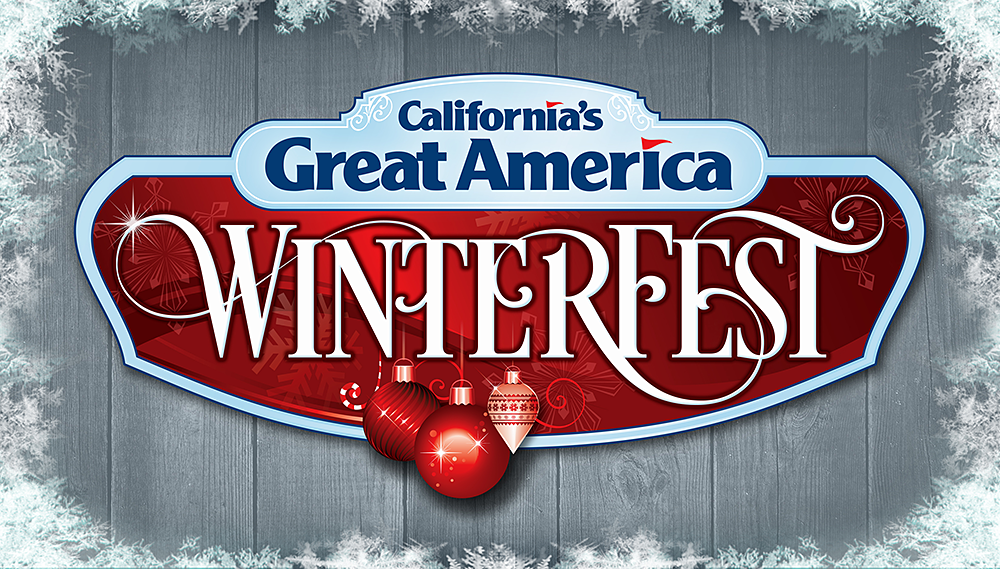
2016 Design Competition Runner Up Artist: Brian Kniceley Client: Cedar Fair Entertainment LHF Fonts: LHF Desire Brian's "Winterfest" design is a terrific example of how a rather simple design can serve its purpose using good layout principles. We appreciated the excellent use of "LHF Desire" and the smart custom modifications he made. When asked why he chose LHF Desire for this project, Brian replied, "This font lends itself to a variety of eras... it is elegant and evokes tradition without being tied to antiquity." The flourishes help carry the eye through the message without distracting. The well-drawn ornaments convey the theme well and balance the design. With the brightest ornament pointing downward, it pulls the eye naturally through the design and acts as an anchor for the design. Thanks Brian! |